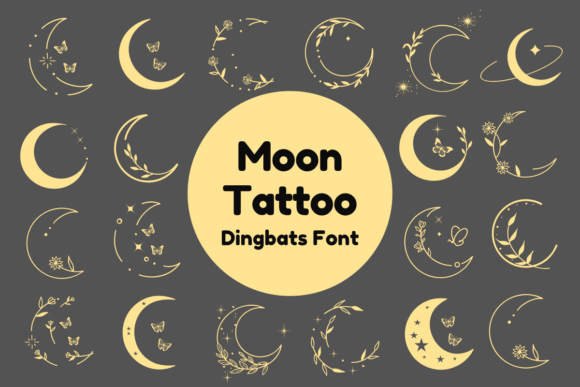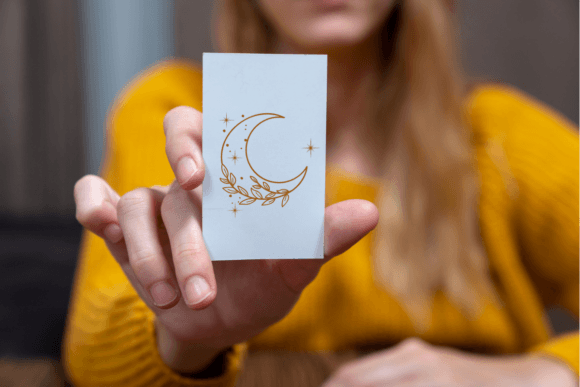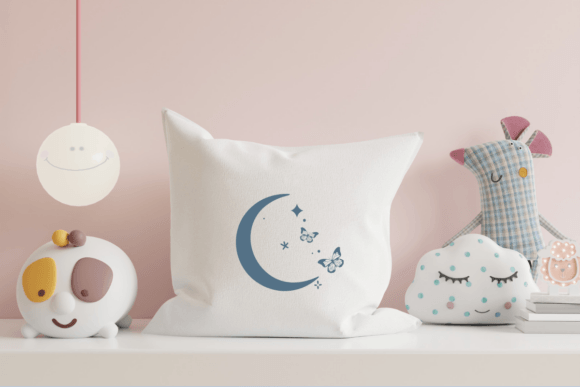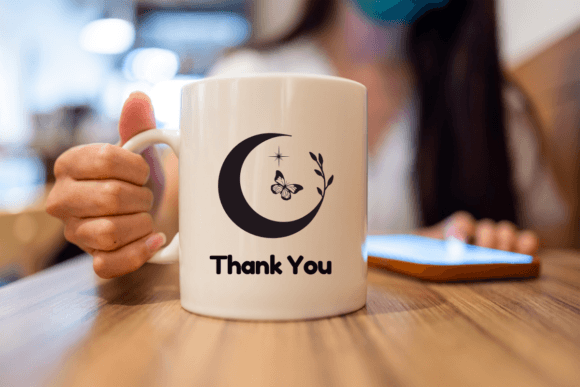
Moon Tattoo Font
About the Moon Tattoo Font
Unleash your creativity with Moon Tattoo Font, a versatile font perfect for a wide range of applications. Moon Tattoo is a dingbats font with a sketched theme. This font can enhance your creative projects such as wedding invitations, DIY, crafts, decorations, logos, and many other creative ideas.
Moon Tattoo’s sketched aesthetic makes it ideal for projects requiring a handcrafted, slightly whimsical feel. It excels in logos, short headlines, and decorative elements on packaging or invitations. However, its low readability makes it unsuitable for body text or UI applications requiring extended reading.
The font’s personality is best described as playful yet approachable. It would suit brands focusing on arts and crafts, small businesses with a handmade ethos, or events with a bohemian or rustic theme.
Pairing Moon Tattoo with a clean sans-serif like Lato for body text or a classic serif like Garamond for more formal elements creates a balanced and visually appealing design. Alternatively, a geometric sans-serif could offer a modern contrast.
Moon Tattoo Font Usage Examples
Moon Tattoo Font Example